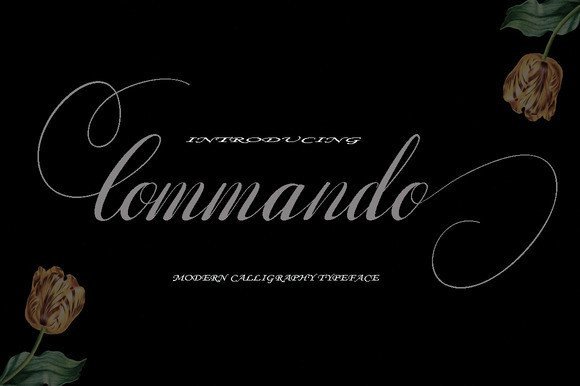
Introduction to Commando Font
Commando is elegant, modern calligraphy.
The writing style is very natural en will look beautiful on wedding invitations, posters, badges, t-shirts and anything else you can imagine with this elegant typeface .
Key Features of Commando Font